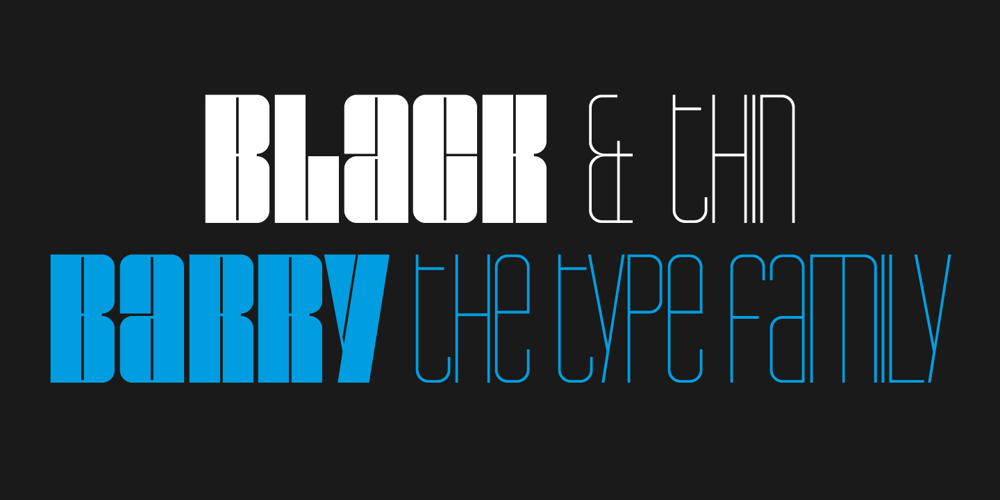
Barry Font Family was designed by Juraj Chrastina and published by Juraj Chrastina. Barry contains 2 styles and family package options. The Barry family combines two opposite weights. This display face has a great effect if the two fonts are used together. If you want to make your design ordinary, Barry is not the right choice.